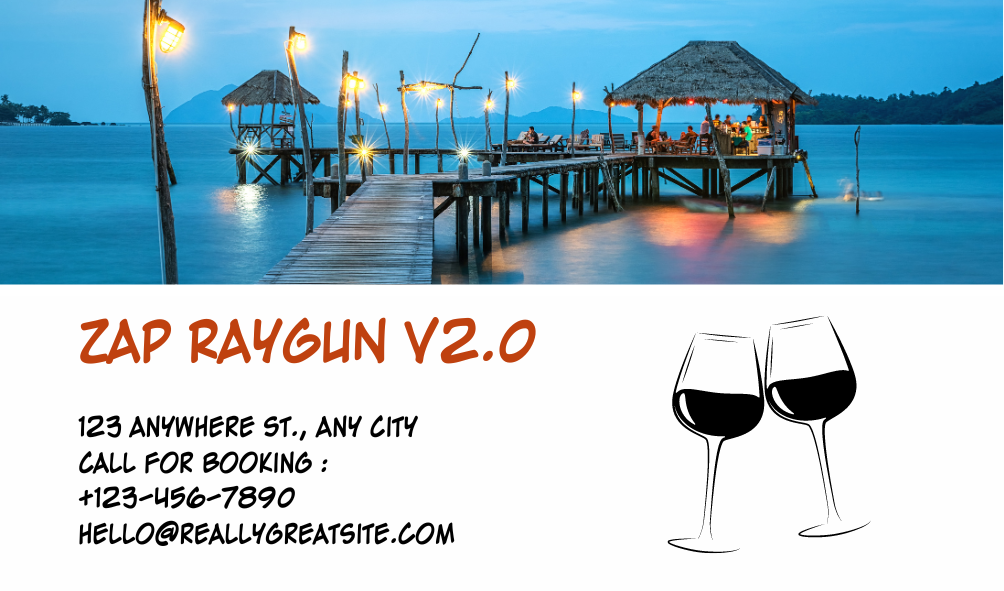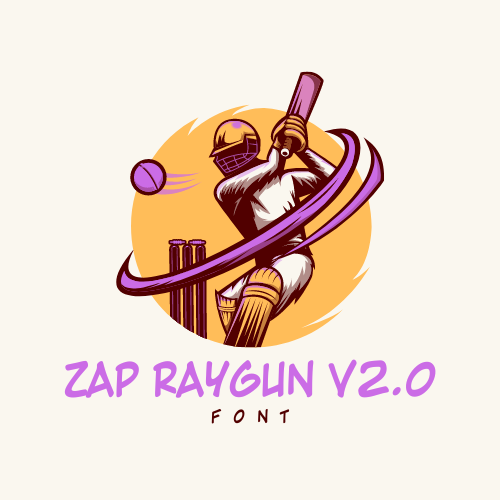
The Zap Raygun V2.0 font is a great choice for any design that needs a fun and playful touch. The Regular subfamily of this font is perfect for headlines, posters, and other graphics that need to stand out.